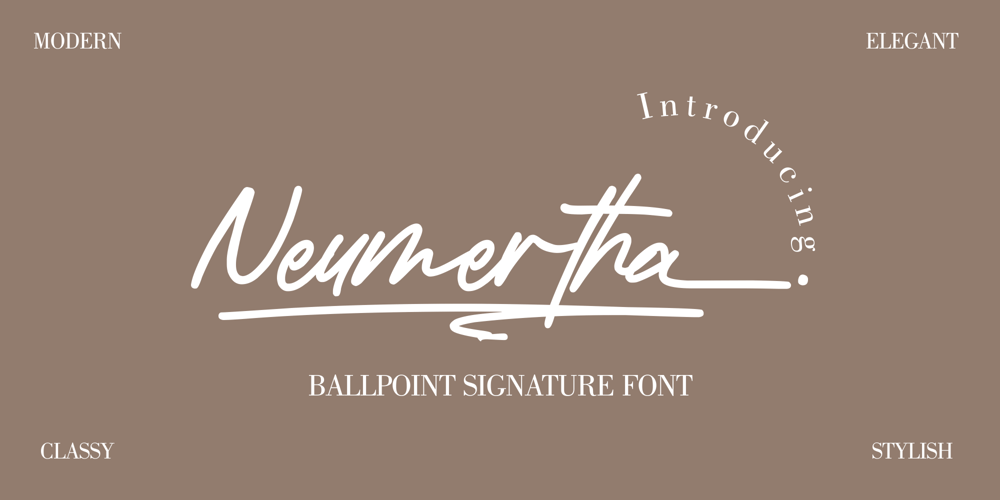
Neumartha Font Family was designed by Zamjump and published by Zamjump. Neumartha contains 1 styles and family package options. Neumertha is an imperfect ballpoint script designed to look as natural as a real handwritten note. Make sure you turn on the ligatures to see the magic as you type and unique extra swash.Great for handwritten quotes, notes, labels, wedding invitations, jewelry, or any project that requires an authentic handwritten touch.Included :- Symbol- Ligature- Ending lowercase swash- Swashes